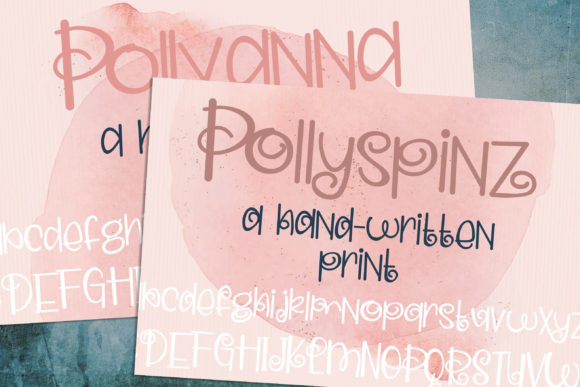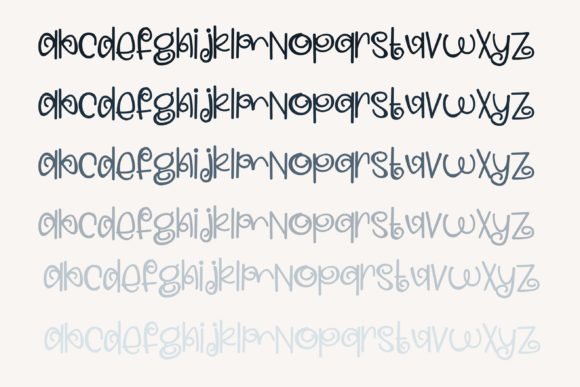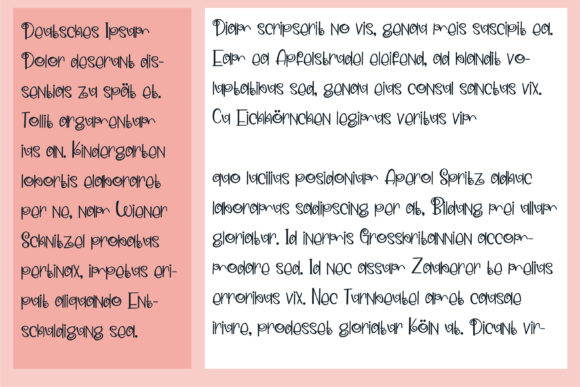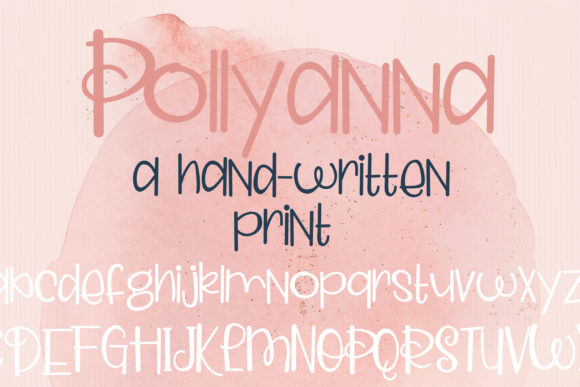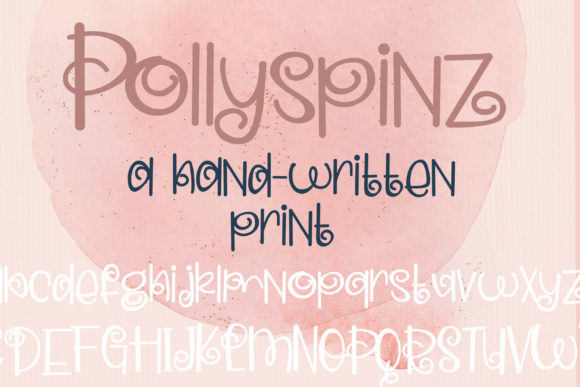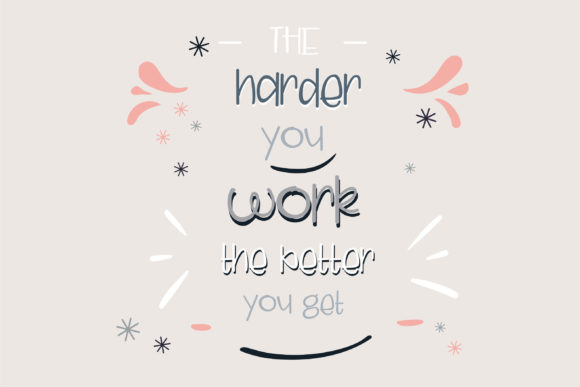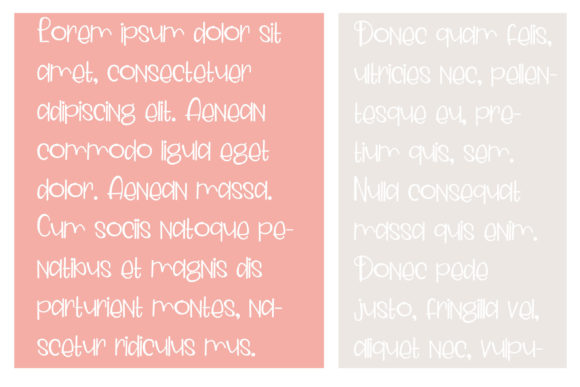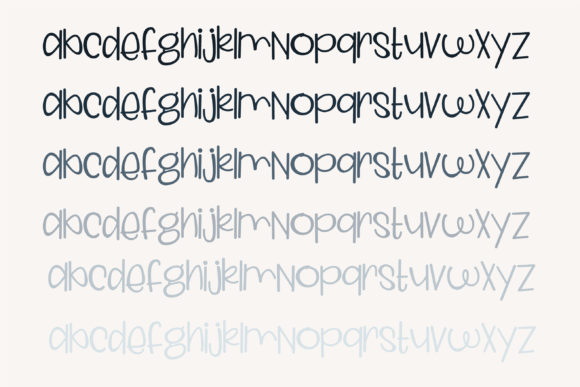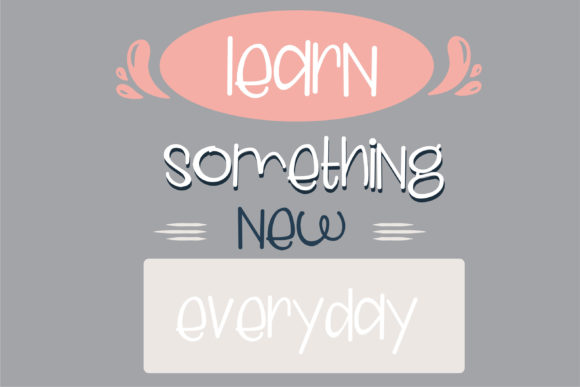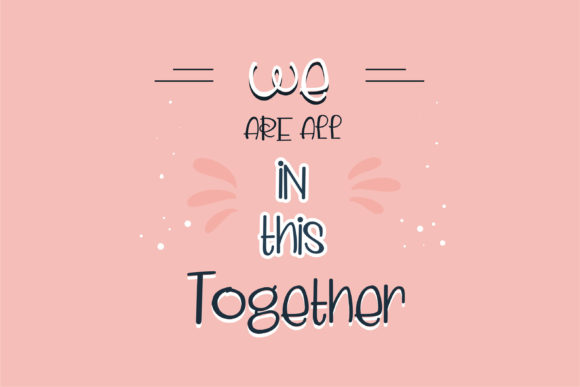
Pollyana and Pollyspinz Font
About Pollyana and Pollyspinz Font
“Pollyana” and “Pollyspinz” emerge as simple, hand-written fonts that exude a whimsical and youthful feel. With their beautifully balanced characters, these fonts become versatile choices that can enhance a wide range of design projects. By incorporating “Pollyana” and “Pollyspinz” into your creative ideas, you’ll likely witness how they infuse your designs with a lively and charming touch.
The allure of “Pollyana” and “Pollyspinz” lies in their ability to add a sense of playfulness and creativity to your work. Their distinct characters and youthful vibe contribute to an aesthetic that resonates with a carefree and engaging spirit. These fonts adapt seamlessly to various design contexts, ensuring their versatility shines through.
Whether you’re aiming to create vibrant designs for invitations, branding materials, social media graphics, or any other creative endeavor, “Pollyana” and “Pollyspinz” become valuable tools. Their unique designs can elevate the visual impact of your projects, making them stand out with a touch of whimsy.
Incorporating “Pollyana” and “Pollyspinz” into your design projects means embracing their simple and playful attributes. By leveraging their unique charm, you’re enhancing the visual allure of your work and ensuring that your designs resonate effectively with your intended audience. These fonts become dependable resources for infusing your creations with a youthful and spirited vibe, allowing your projects to come alive with energy and creativity.